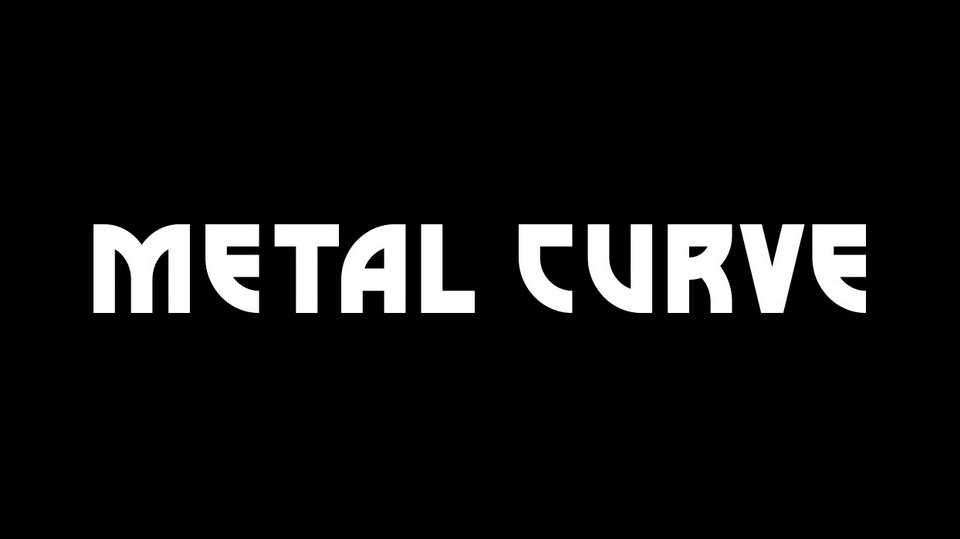
Download Metal Curvefont, a creative font inspired by all the great metal bands of past and present. Great for logos and branding, not only music bands, posters, headlines, apparel and more.
Designer: Matt Smith